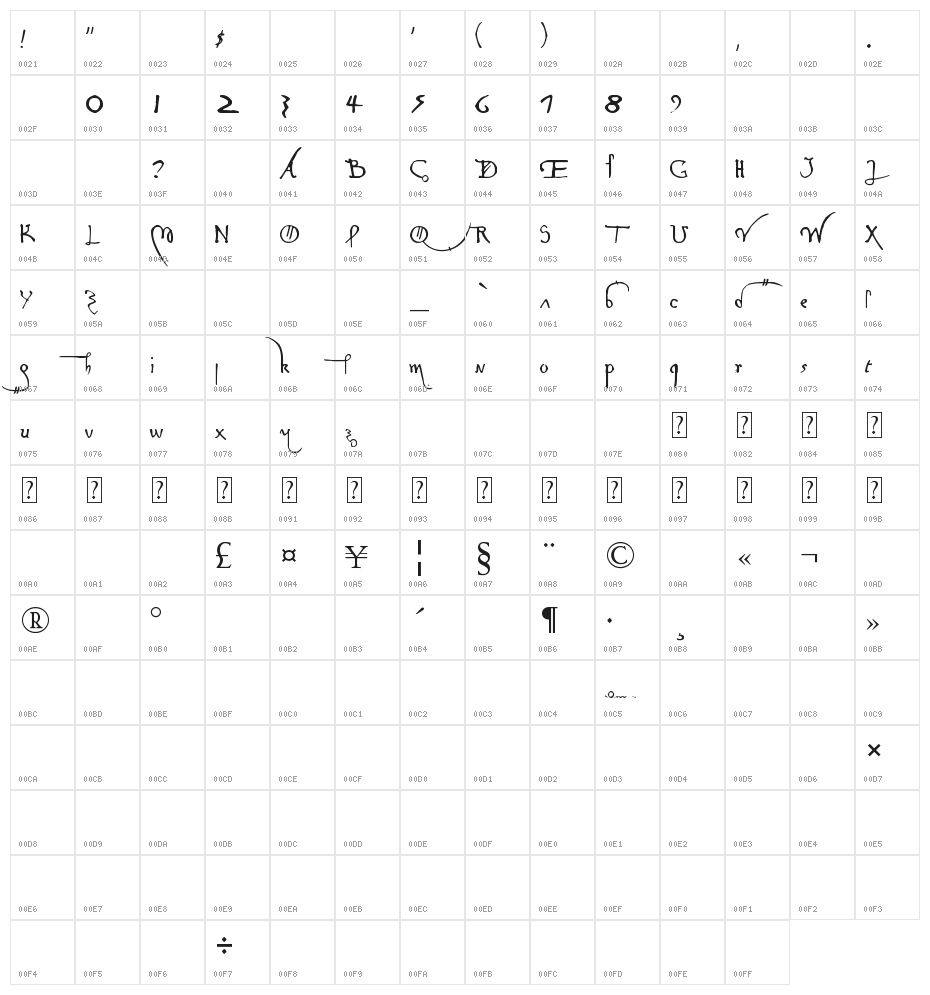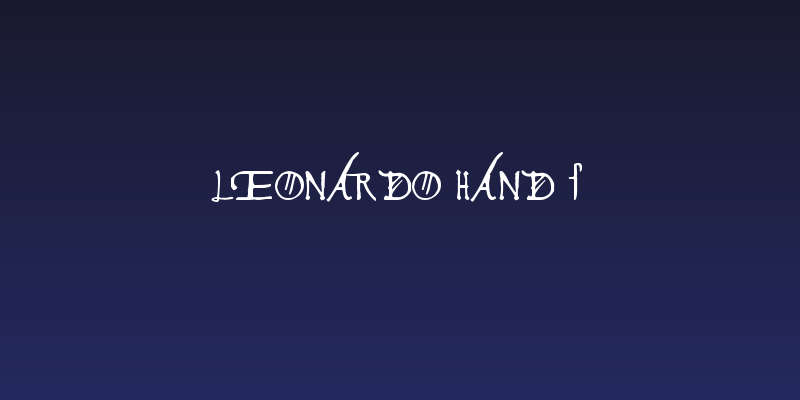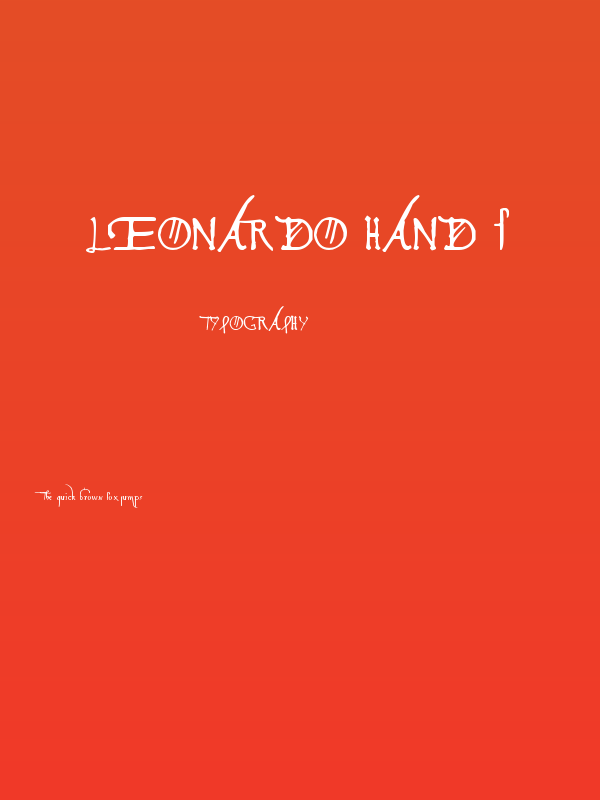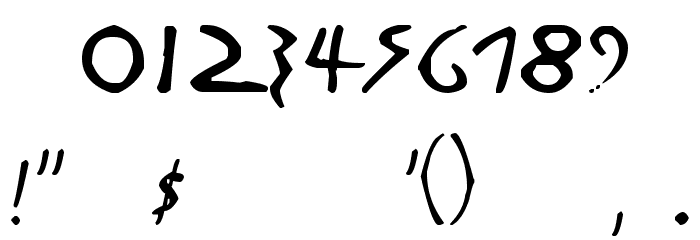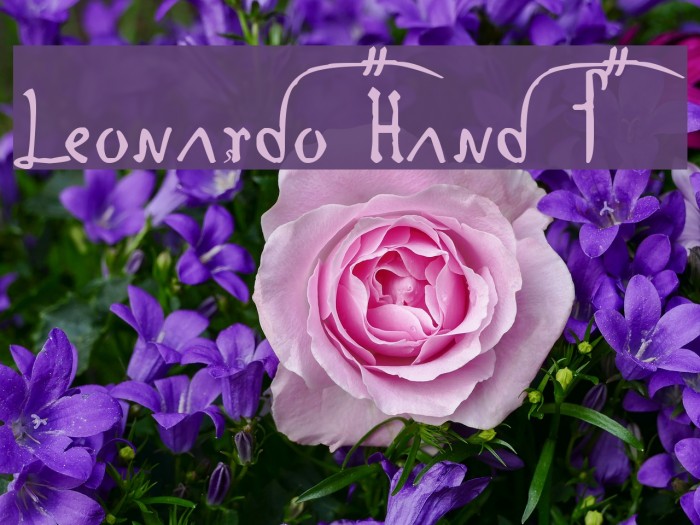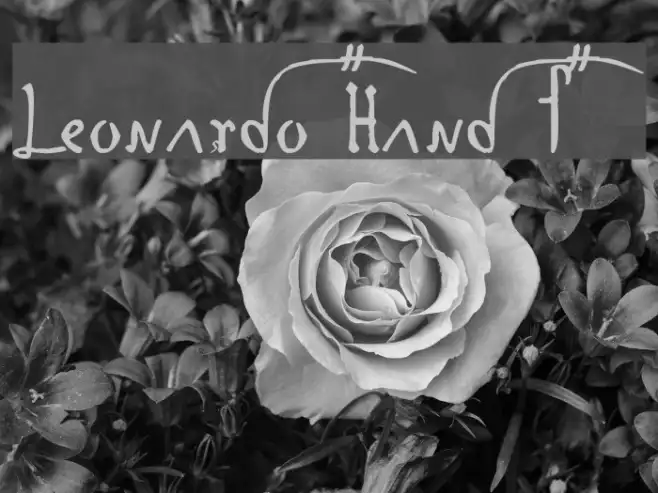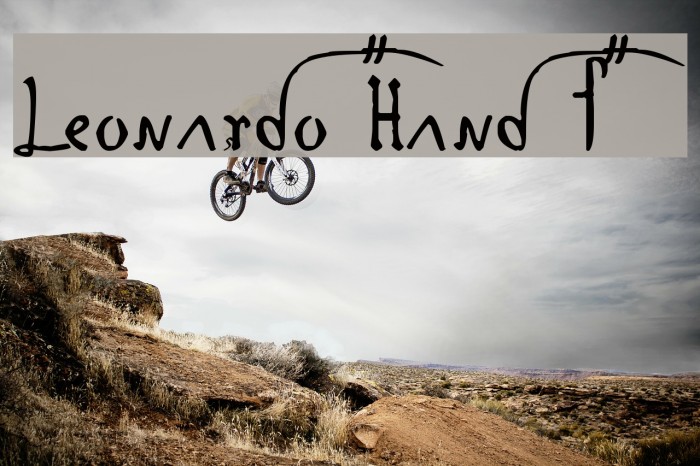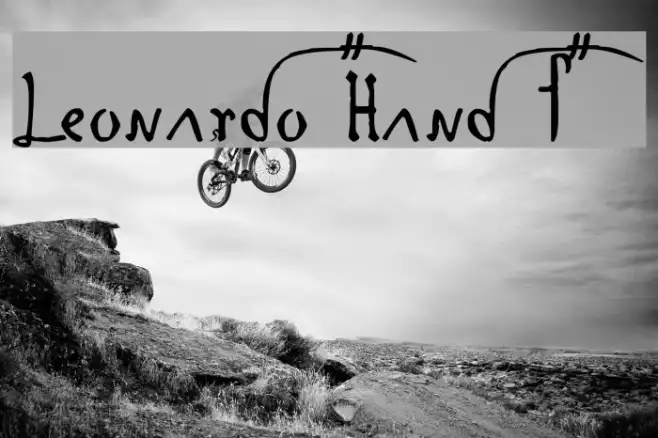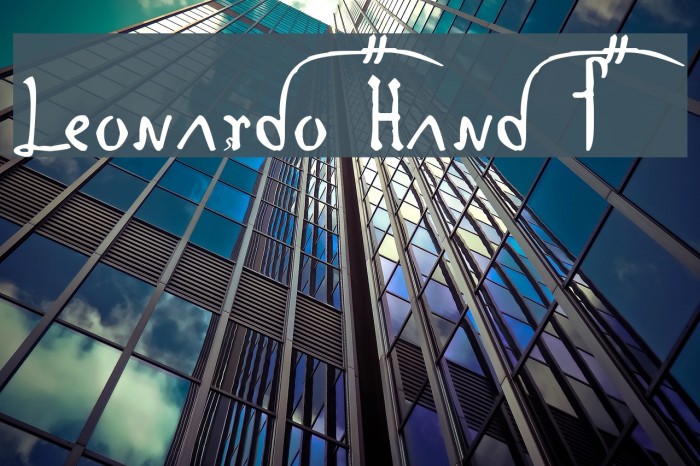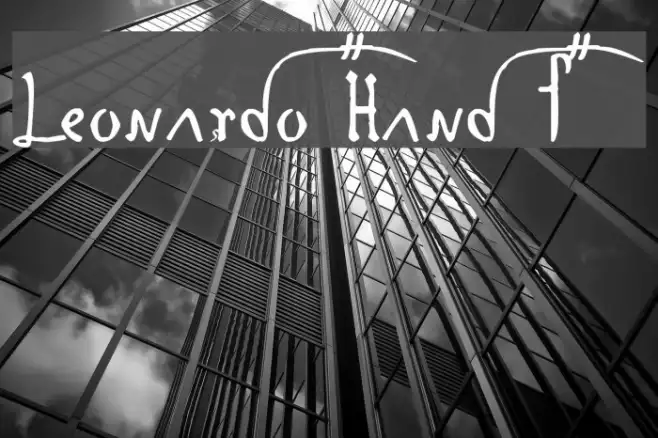
Leonardo Hand F Font
Leonardo Hand F Description
This font exudes a unique, artistic flair reminiscent of historical manuscripts. Each character is crafted with intricate details, featuring elongated strokes and decorative loops that give it a hand-drawn appearance. The uppercase letters are bold and prominent, while the lowercase letters maintain a consistent style with a slightly more delicate touch. Numbers are equally stylized, maintaining the overall aesthetic. The special characters are creatively integrated, adding to the font's distinct personality. This font is perfect for projects that require a touch of elegance and historical charm.